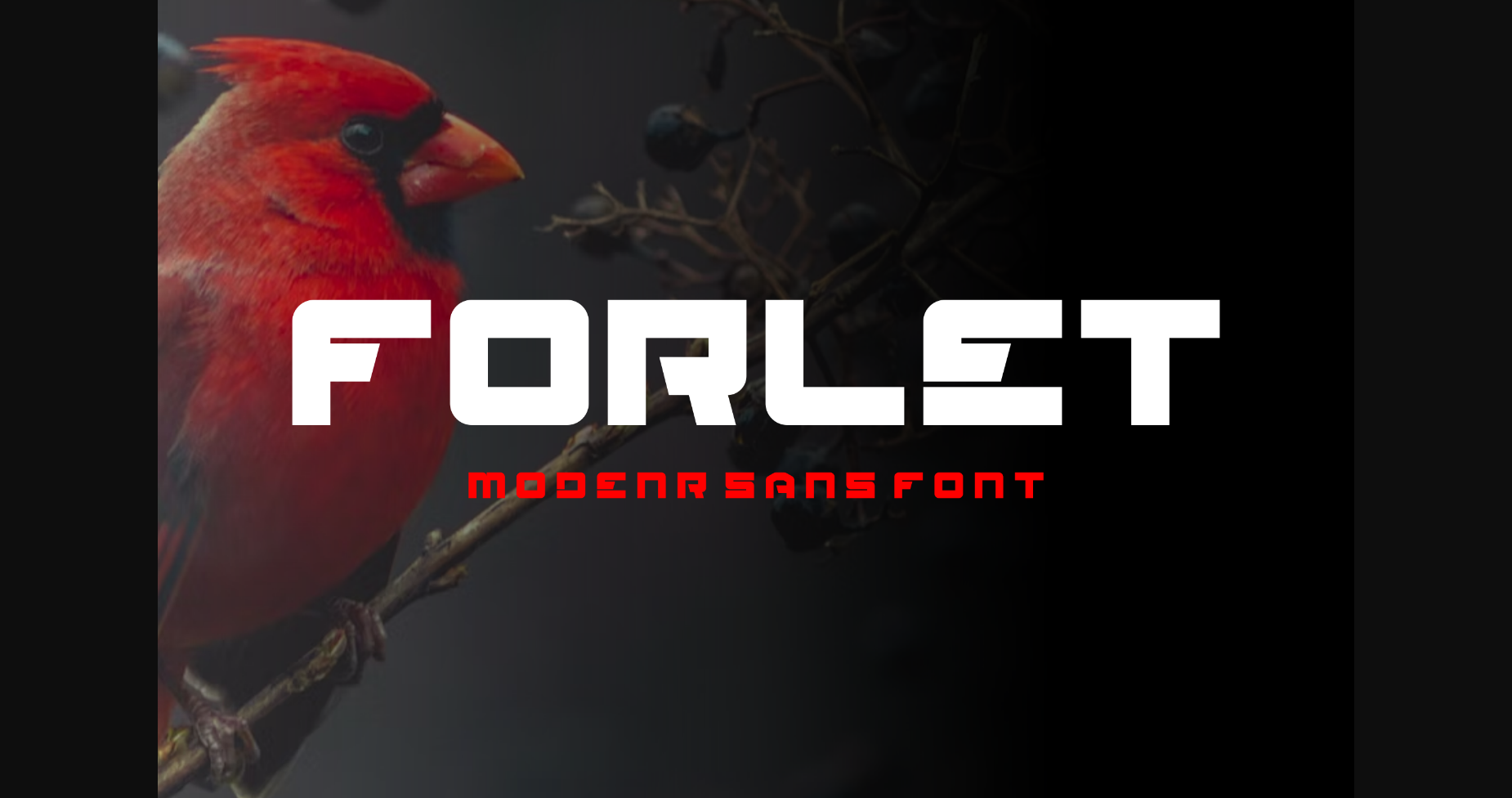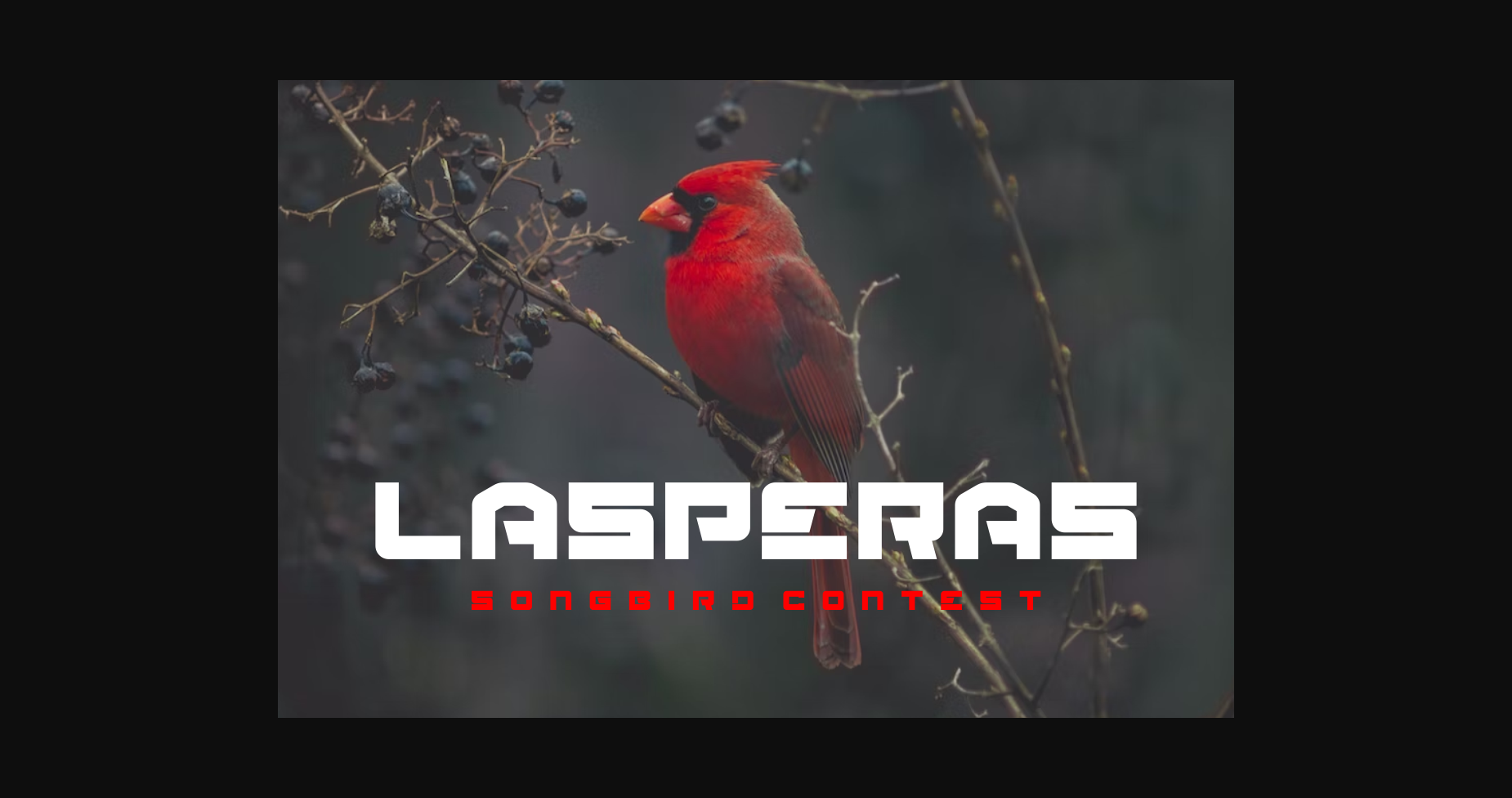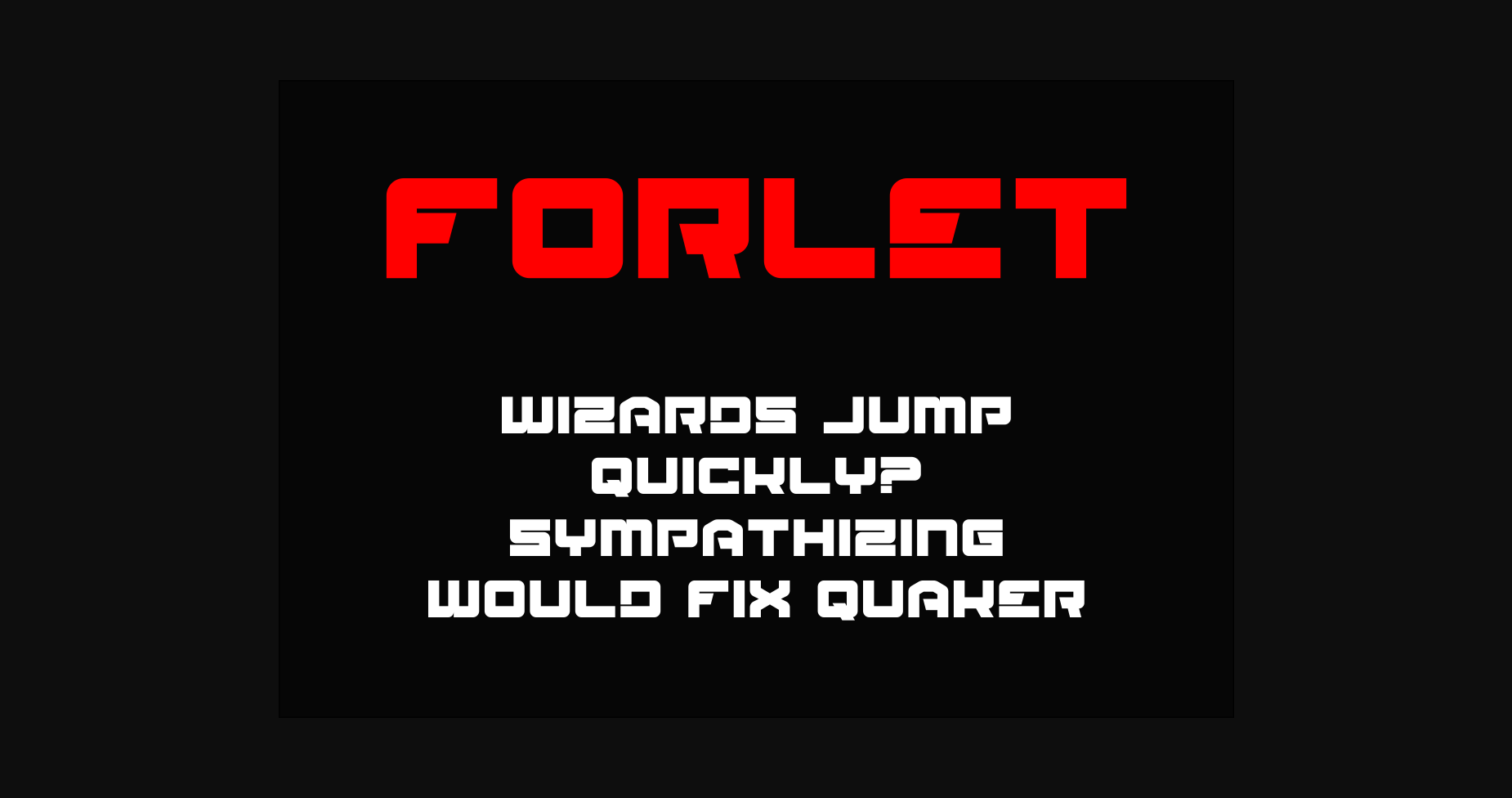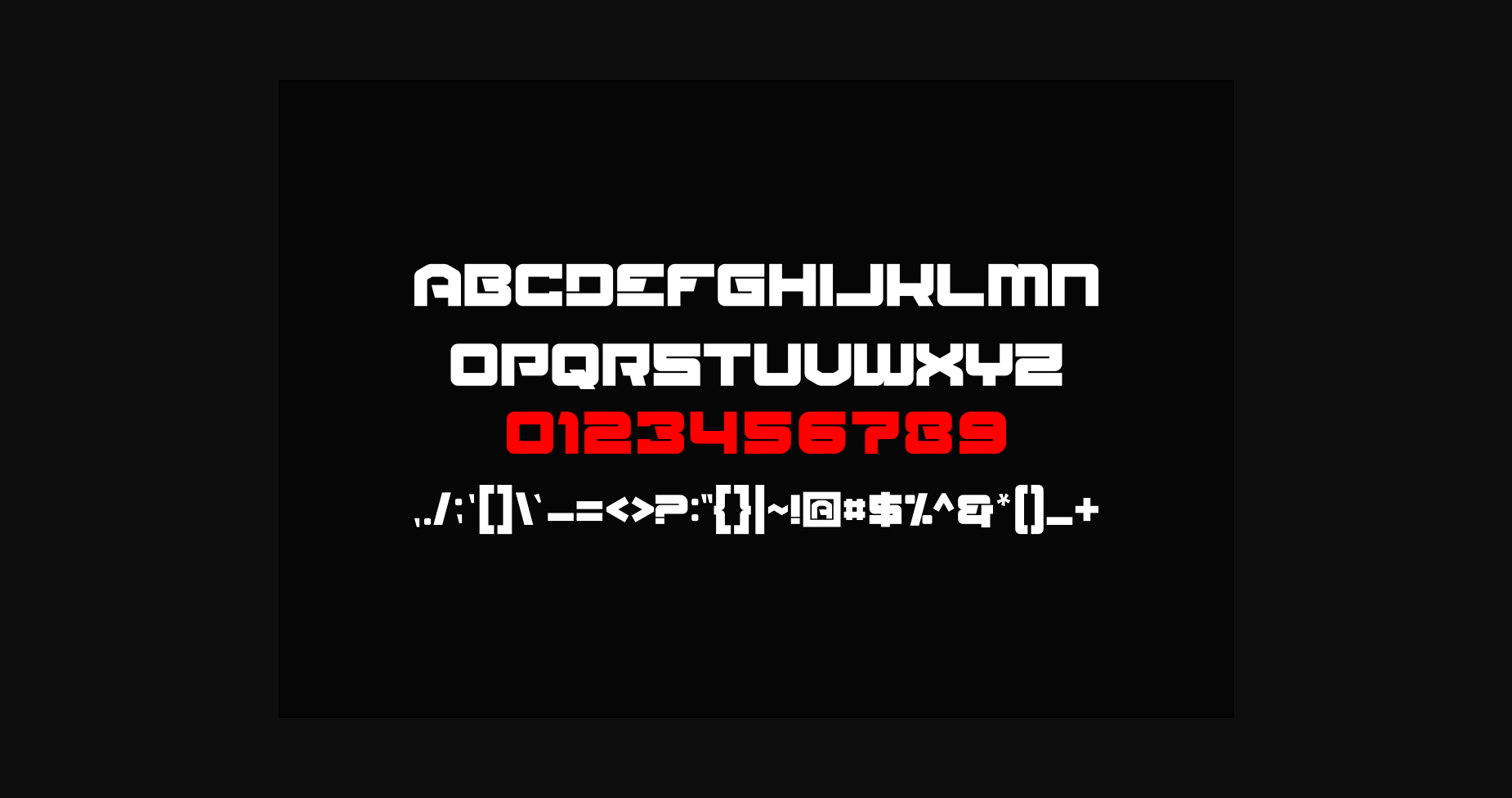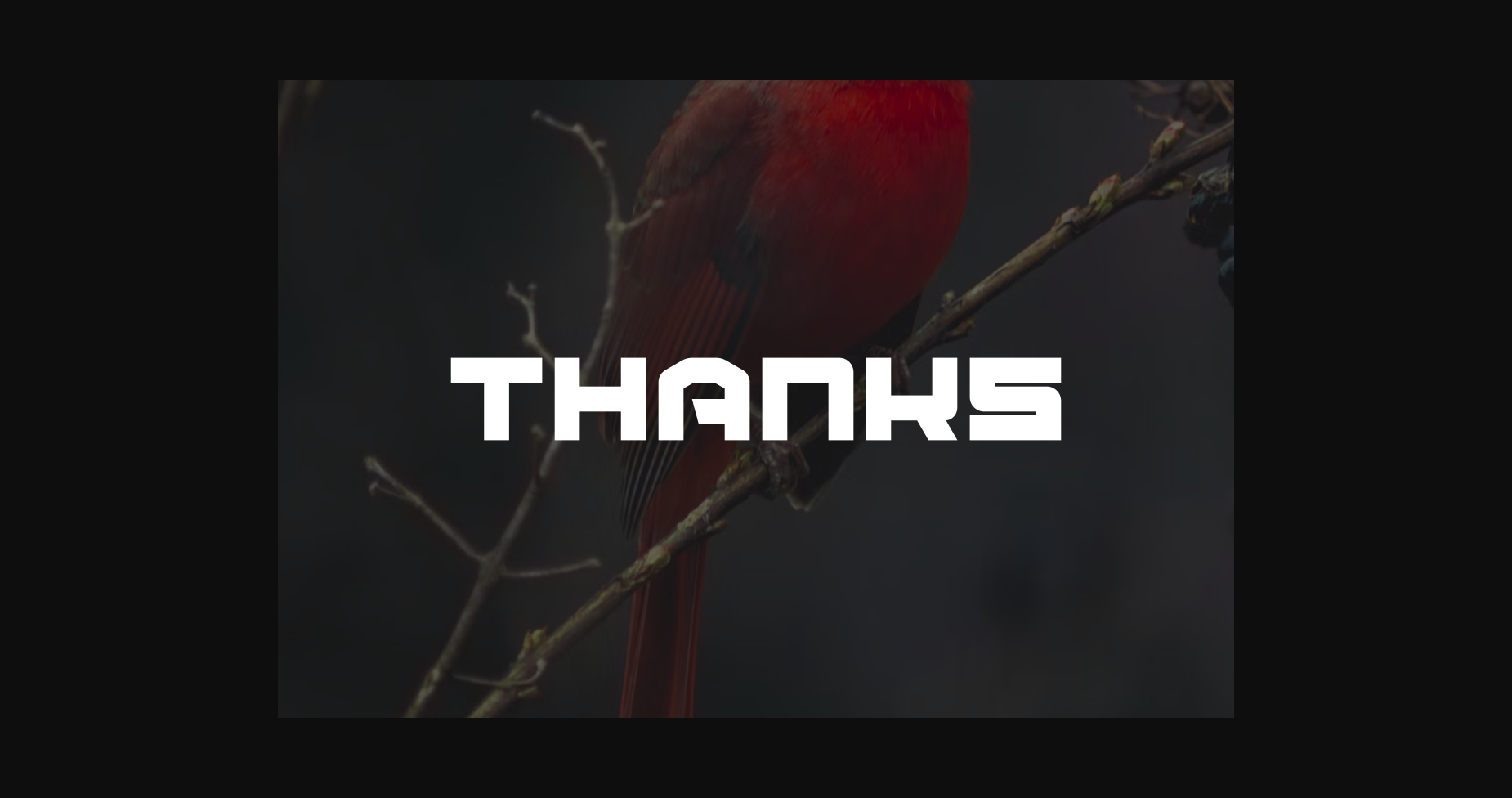
HomeSans Serif FontsForlet Font Sans Serif Fonts Forlet Font FacebookXPinterestWhatsApp 1 of 7 ... Forlet Font Poster 2... Forlet Font Poster 3... Forlet Font Poster 4... Forlet Font Poster 5... Forlet Font Poster 6... Forlet Font Poster 7... About Forlet Font Forlet is a modern, bold, and authentic display font suitable for any branding project such as logos, T-shirt printing, esports, and many more. Outstanding in a wide range of contexts, it will make your work extraordinary! DOWNLOAD NOW People also explored Srikandy Script Font Rosalinda Font Hello Homework Font Biudazp Font Mistake Font Beatney Font Embrace the Journey Font Wetin Caro Want Font Spons Blocky Font 339 0 TagsForletForlet Font Previous articleBisson FontNext articleDigner Font LEAVE A REPLY Cancel reply Comment: Please enter your comment! Name:* Please enter your name here Email:* You have entered an incorrect email address! Please enter your email address here Website: Save my name, email, and website in this browser for the next time I comment. Personal Use Free Rolling Door Personal Use Free Read more about this font Alinda Personal Use Free Read more about this font Fontmageddon Personal Use Free Read more about this font Talking on Personal Use Free Read more about this font BLOG 5 Fonts That Will Dominate Design Trends in 2026 5 Fonts for 2026 That Will Dominate Design Trends Typography plays a critical role in visual communication, and as we look ahead to 2026, it’s... To increase your work productivity, choose the most readable fonts. Free vs Paid Fonts: Why Investing in Premium Fonts Is Worth It The 10 Best Handwriting Fonts to Add Personality to Your Designs